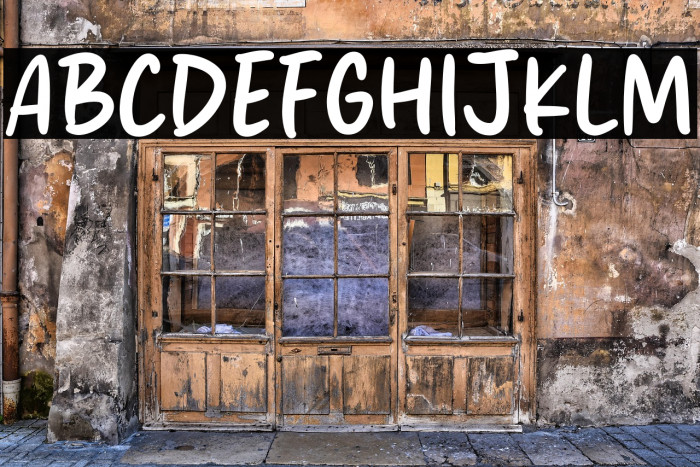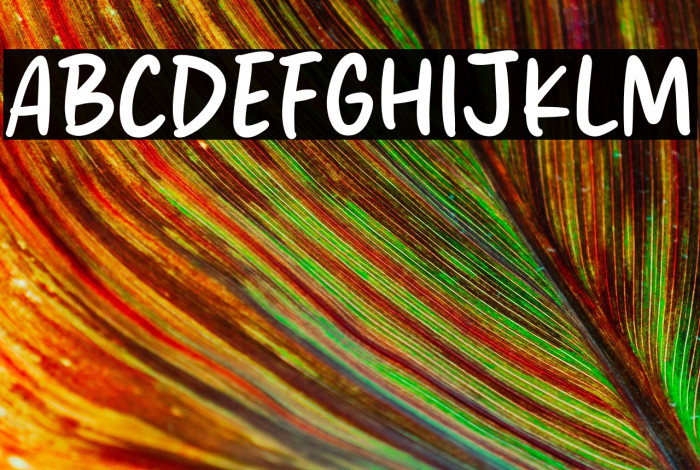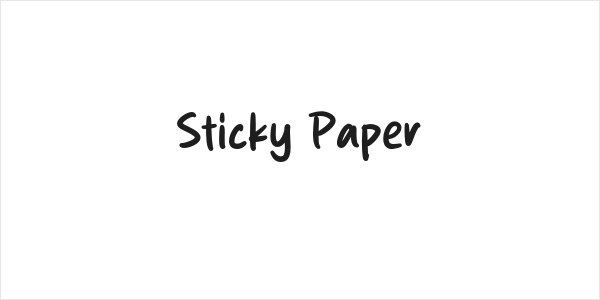
Sticky Paper Font
Sticky Paper Description
This font features a playful and casual handwritten style, characterized by its smooth curves and slightly irregular strokes. The letters are bold and rounded, giving a friendly and approachable appearance. The uppercase and lowercase letters maintain a consistent flow, while the numerals and special characters complement the overall design. The font's informal nature makes it suitable for creative and fun projects, adding a personal touch to any text.
| Overall Style | Casual |
| Use Case | Logos, Headlines, Informal text |
| Proposed Projects | Ideal for greeting cards, children's books, playful branding, and social media graphics. |